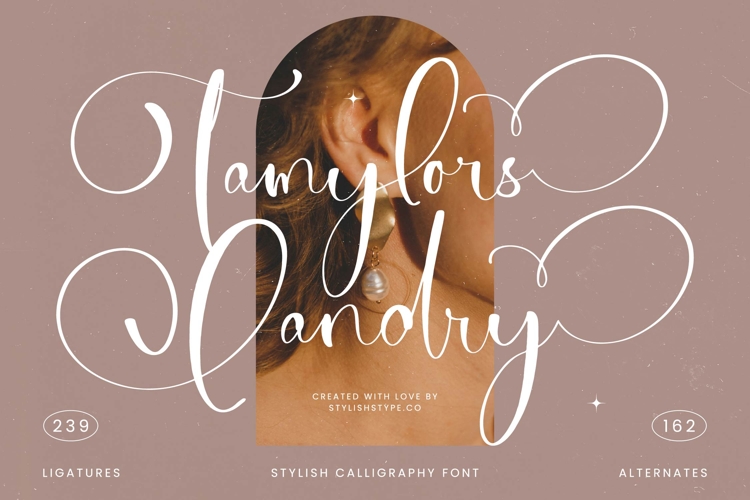
Tamylors Landry - Stylish Calligraphy Font
Discover the transformative power of exquisite typography with Font Tamylors Landry - Stylish Calligraphy Font Script. This captivating script font masterfully blends classic calligraphic artistry with contemporary elegance, creating a truly unique visual signature. Its fluid, sweeping strokes and expressive letterforms convey an undeniable sense of sophistication and handcrafted charm, instantly elevating any design project from ordinary to extraordinary.
Unleash unparalleled creative freedom through its rich typographic features. Font Tamylors Landry - Stylish Calligraphy Font Script boasts an impressive collection of 239 ligatures and 162 alternates, providing endless possibilities for customization and ensuring an authentic, natural-looking flow. These carefully designed flourishes allow you to craft bespoke headlines, logos, and intricate text layouts that resonate with a high-end aesthetic. The intricate connections and varying stroke weights add significant visual interest and depth.
Expand your brand's reach and connect with a diverse audience effortlessly. With its extensive multilingual support, Font Tamylors Landry - Stylish Calligraphy Font Script adapts seamlessly across global markets, making it incredibly versatile for international projects. This global adaptability ensures your message maintains its elegant appeal and professional integrity, no matter the language, solidifying its position as an essential asset for designers working on a worldwide scale.